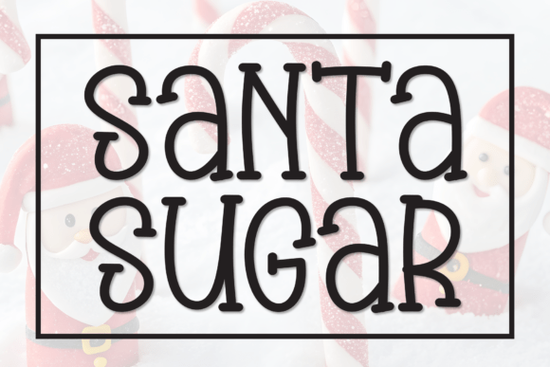
Looking for a font that feels warm, friendly, and just a little whimsical? The Santa Sugar Font is a handwritten display typeface designed to bring sweetness and personality to your projects. Whether you're working on holiday cards, seasonal branding, or festive printables, this font has a playful, hand-lettered quality that fits right in with cheerful, joyful designs. It's the kind of typeface that makes people smile the moment they see it.
What Makes the Santa Sugar Font Stand Out?
There's no shortage of handwritten fonts out there, but not all of them hit the right balance between cute and readable. Santa Sugar Font manages to do both. The letterforms are rounded and soft, giving off a cozy, approachable vibe without sacrificing clarity. Each character feels like it was drawn by hand with care, which adds authenticity to whatever you're designing.
This font works especially well for projects where you want to evoke warmth and nostalgia. Think wedding invitations, greeting cards, gift tags, social media graphics, and seasonal packaging. If your design calls for something friendly and lighthearted, this typeface delivers.
What Design Projects Work Best With a Sweet Handwritten Font?
Sweet, handwritten display fonts like this one are incredibly versatile. Here are some popular ways designers and crafters put them to use:
- Holiday and Christmas cards The playful lettering style fits perfectly with festive themes.
- Wedding invitations and save-the-dates The tender, romantic feel adds a personal touch.
- Print-on-demand products Tote bags, mugs, and t-shirts look great with charming script-style fonts.
- Blog headers and social media posts Stand out with typography that feels human and approachable.
- Scrapbooking and DIY crafts A handwritten font adds that handmade quality crafters love.
- Small business branding Bakeries, boutiques, and gift shops can use it for logos, labels, and signage.
If you're building a font collection for seasonal and event-based projects, pairing this typeface with other display fonts gives you more creative flexibility. For example, bold and chunky display fonts work well for headlines, while a sweet font like this handles the detail work beautifully.
How Does It Compare to Other Display Fonts?
Every font has its own personality. Compared to something like a spooky-themed display typeface or a geometric display font, Santa Sugar Font sits firmly in the warm-and-friendly category. It's not edgy or minimal it's soft, round, and inviting.
That said, knowing when to use which style matters. If you're designing for Halloween or a tech brand, you'd probably reach for something different. But for Christmas projects, Valentine's Day designs, baby shower invitations, or children's party decor, this font is a natural fit.
Designers who enjoy mixing type styles might pair it with a clean sans-serif for body text. You could also combine it with something like an elegant script display font for a layered, professional look. And if you're building out a broader collection, browsing options like beginner-friendly display fonts can help you find complementary styles quickly.
Is the Santa Sugar Font Easy to Work With?
Keep in mind that as a display font, it's best used for headlines, titles, and short text elements. It's not designed for long paragraphs or body copy. Use it where you want impact and personality, then pair it with a simpler font for readability.